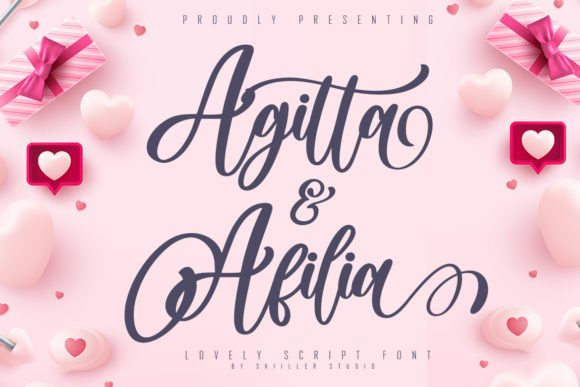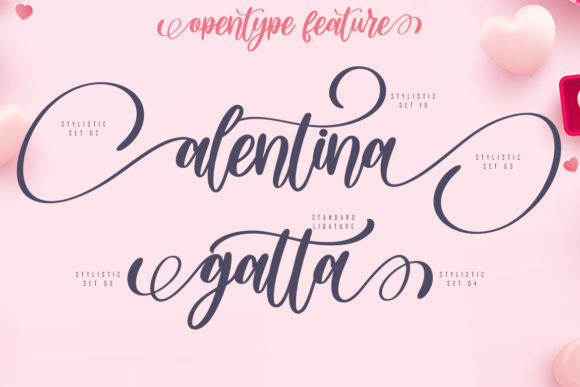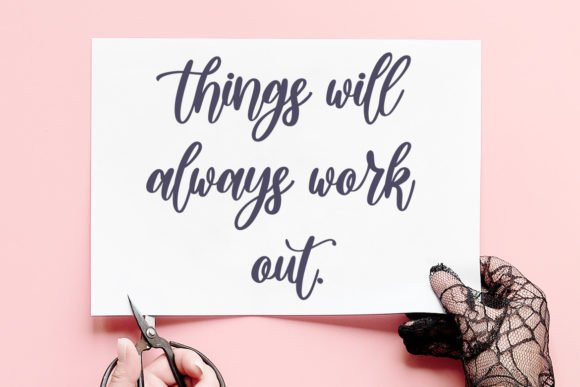
Agitta Afilia Font
Agitta Afilia is a stylish and elegant script font. Fall for its ravishing style and use it to create gorgeous designs. This font is PUA encoded which means you can access all of the glyphs and swashes with ease!